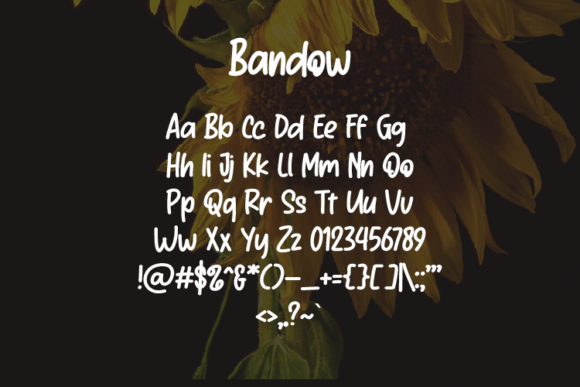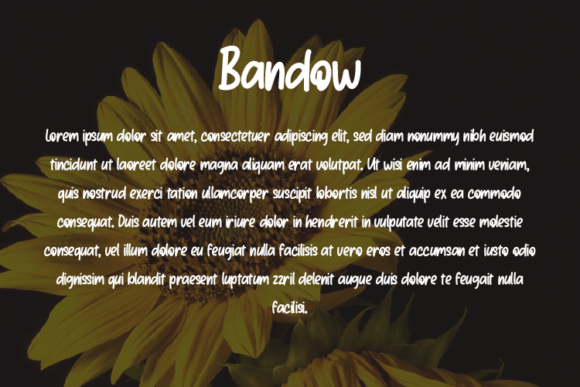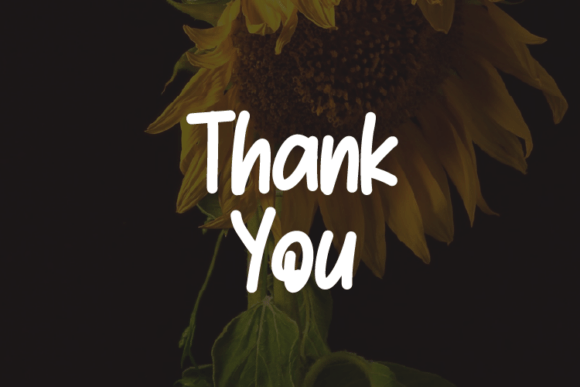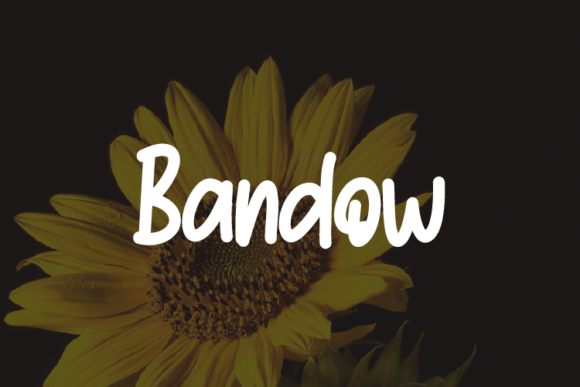
The Perfect Canvas: Unleashing Your Creativity with Bandow Font
Enter Bandow Font, a modern and elegant typeface designed to elevate your creative endeavors. This versatile font is engineered for flexibility, ensuring excellent readability across various media platforms. Whether you’re working on a project for print, web, or digital, Bandow Font has got you covered.
Bandow Font Key Features
- Unique Characteristic: Bandow Font features a unique blend of modern and vintage elements, creating a distinctive aesthetic.
- Font Style: Available in Regular, Italic, Bold, and Bold Italic styles, providing flexibility for different design needs.
Bandow Font Review
As a designer, I was excited to dive into the Bandow Font, and overall, I’m pleased with its performance.
Here are some standout features that caught my attention:
- Unique aesthetic: The Bandow Font has a distinct, hand-drawn feel that sets it apart from more common sans-serif fonts.
- High legibility: Despite its decorative nature, the font remains easy to read, even at smaller sizes.
- Excellent for headings: The font’s bold, expressive lines make it perfect for grabbing attention in headings and titles.
While the Bandow Font excels in many areas, there are a few drawbacks to consider:
- Limited character set: The font may not include all the characters you need for certain languages or special characters.
- Not ideal for body text: While it works well for headings, the font may be too distracting for large blocks of body text.
The Bandow Font is a great choice for designers looking to add some personality to their projects. Its unique aesthetic and high legibility make it a great option for headings and titles, but it may not be the best fit for body text or projects requiring a wide character set.
Getting the Most Out of Bandow Font
For optimal results, use Bandow Font in conjunction with high-contrast backgrounds and bold graphics.
Consider pairing Bandow Font with other sans-serif fonts for a clean and modern look.
Bandow Font is ideal for:
Logo design and branding.
Business card and stationery design.
Web design and digital marketing materials.
Print materials, such as brochures and flyers.